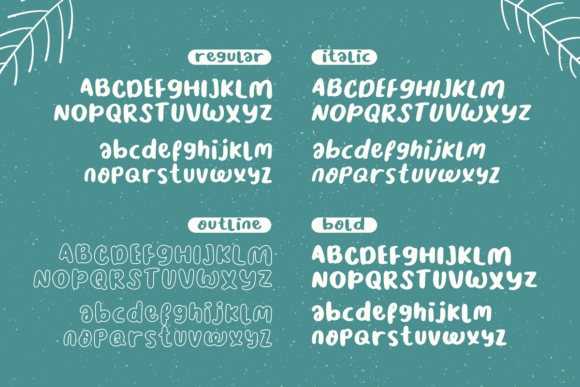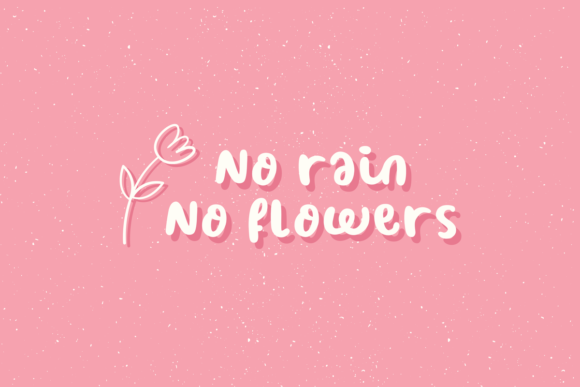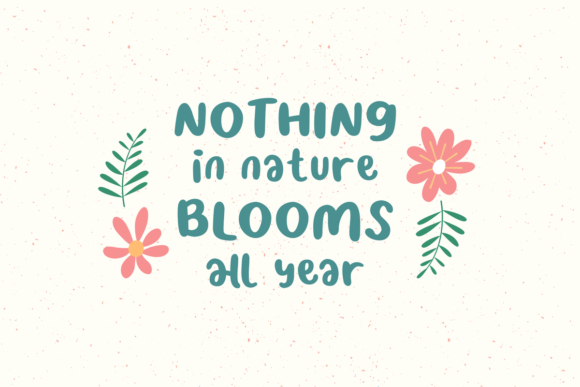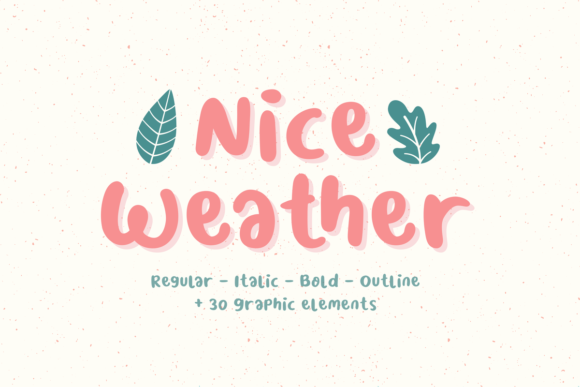
Introduction to Nice Weather Font
Nice Weather is a cute, paint brushed handwritten font.
It is perfect for any branding project such as logos, t-shirt printing, creative products, and more It will look extraordinary in a variety of contexts.